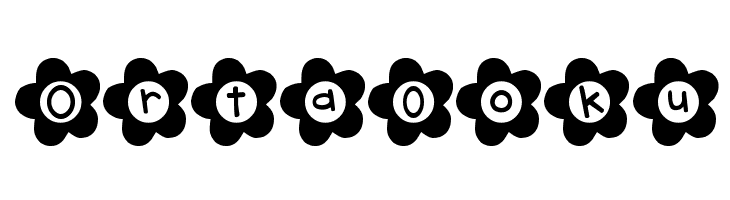
A playful, flower-encased decorative font with bold, rounded characters.
A playful font with characters encased in flower shapes, offering a whimsical and decorative style.